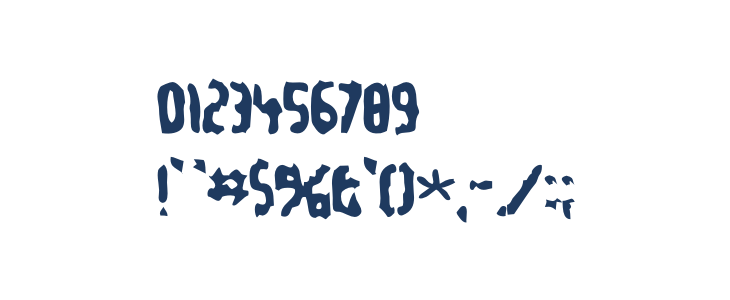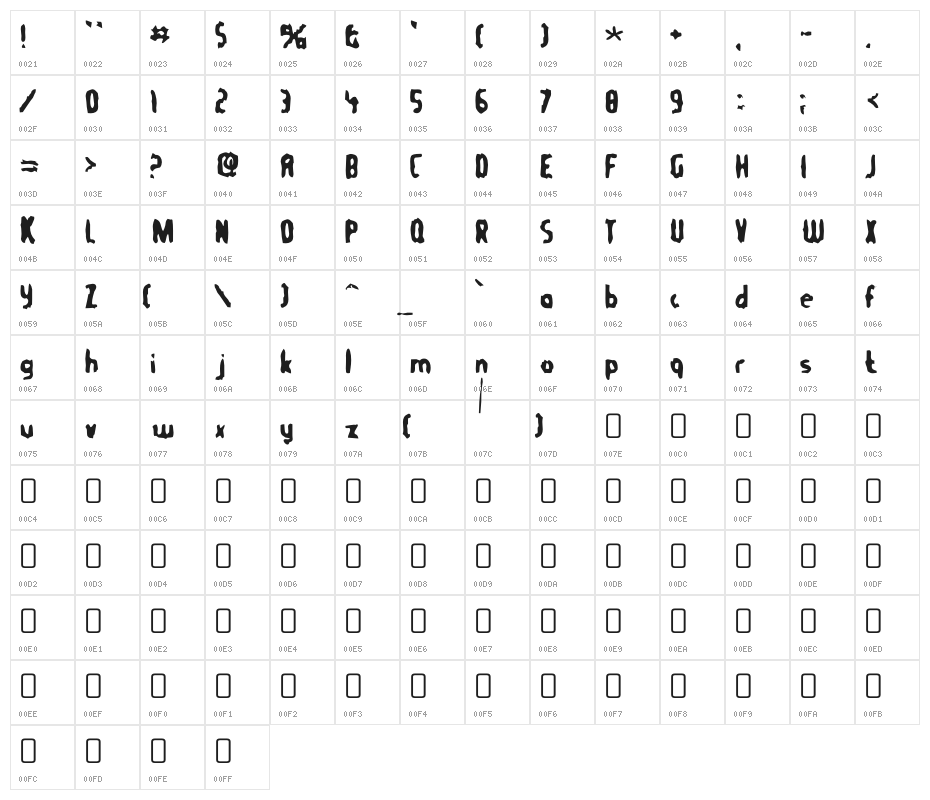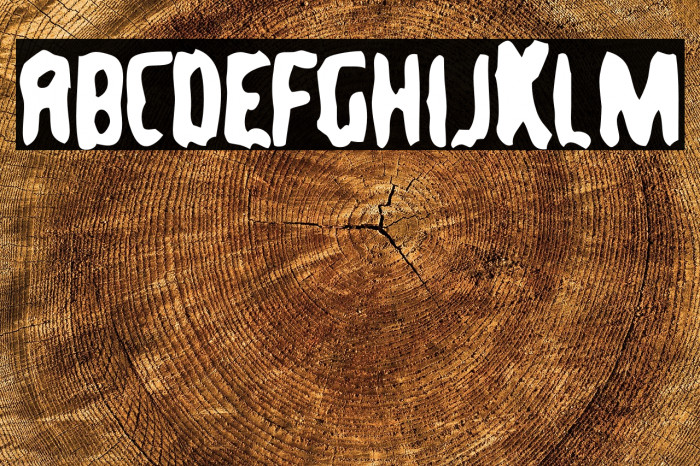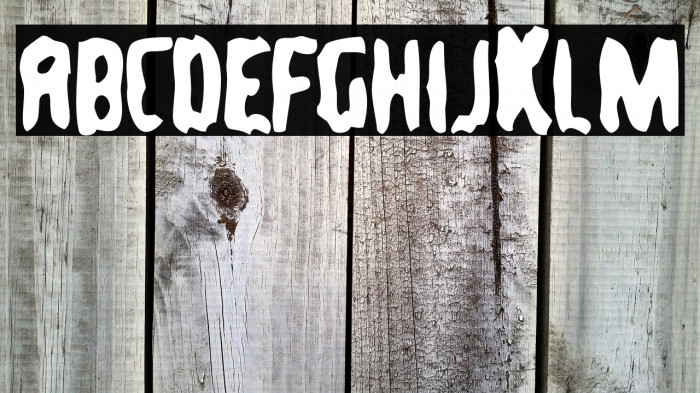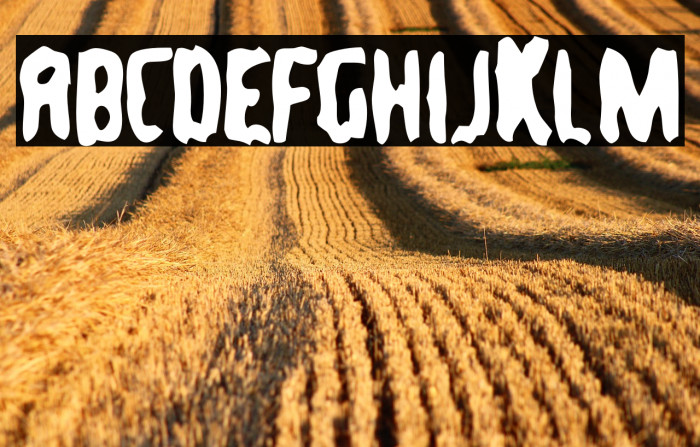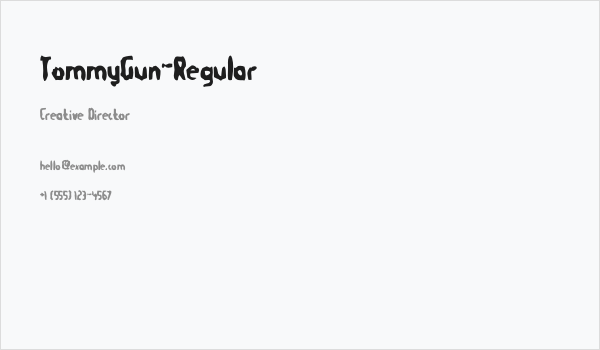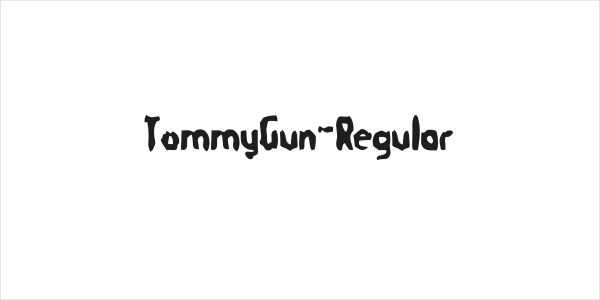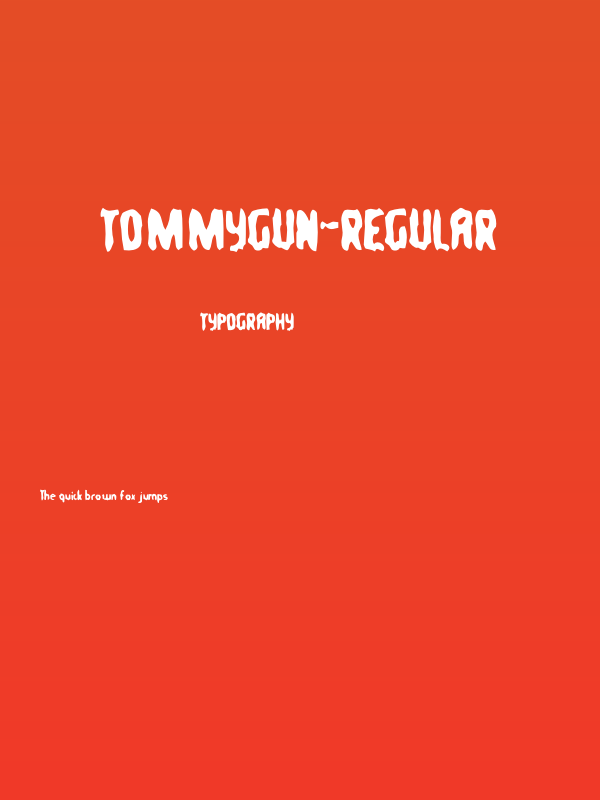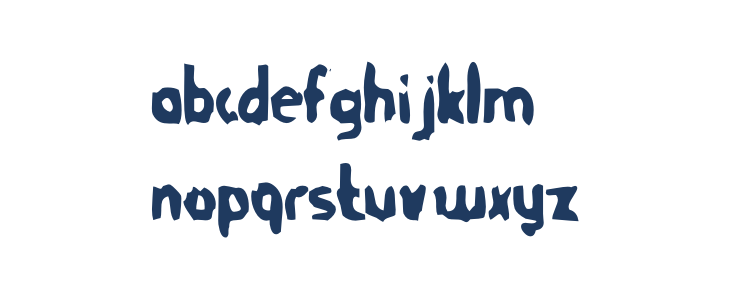
TommyGun-Regular Font
TommyGun-Regular Description
This font features a bold and rugged design with irregular, jagged edges that give it a hand-drawn, graffiti-like appearance. The characters are thick and substantial, creating a strong visual impact. The uppercase and lowercase letters maintain a consistent style, with a playful yet edgy feel. The numbers and special characters follow the same aesthetic, ensuring uniformity across all glyphs. This font's unique style makes it stand out, ideal for projects that require a bold statement or an artistic touch.